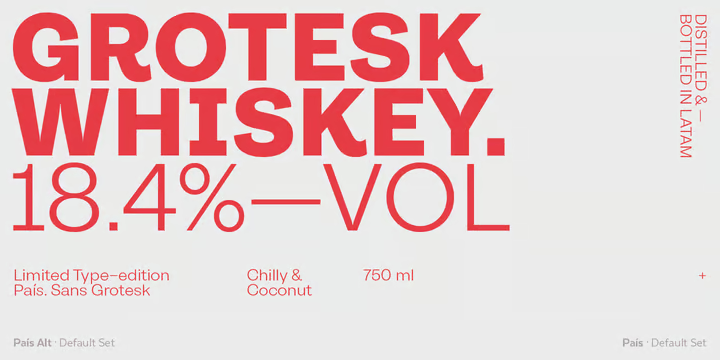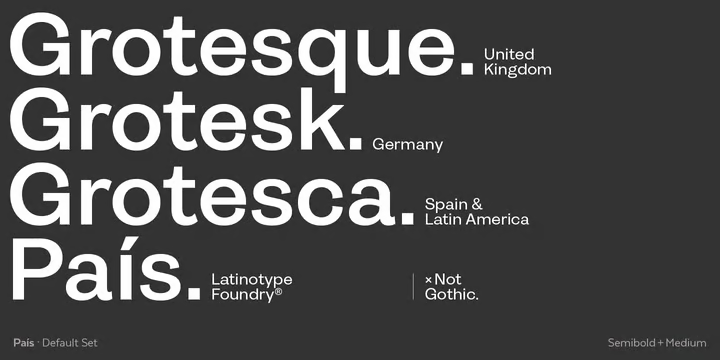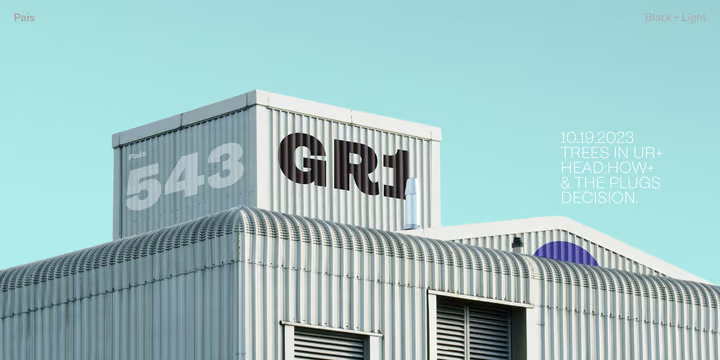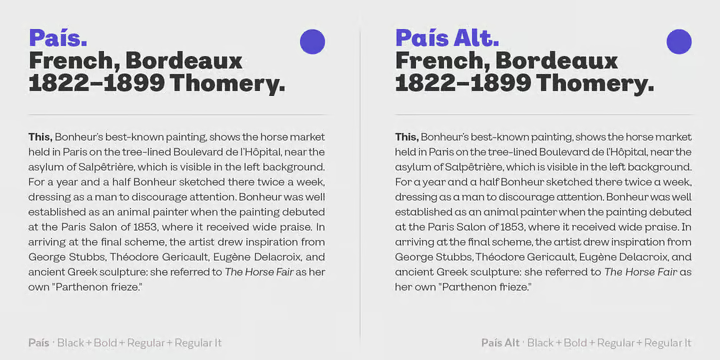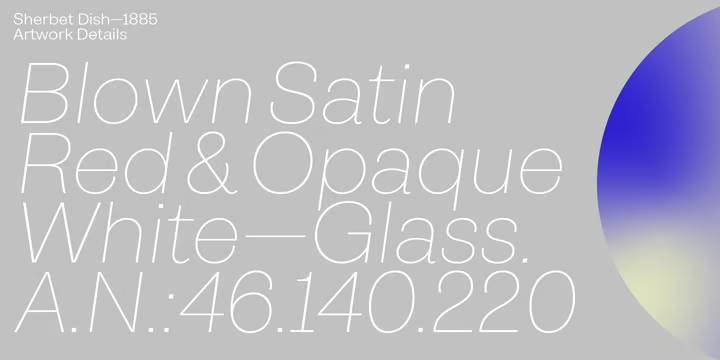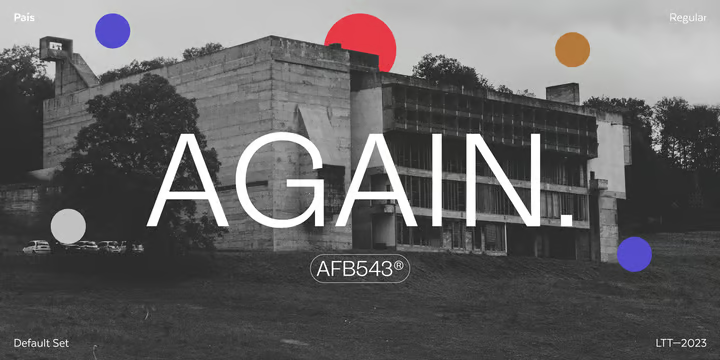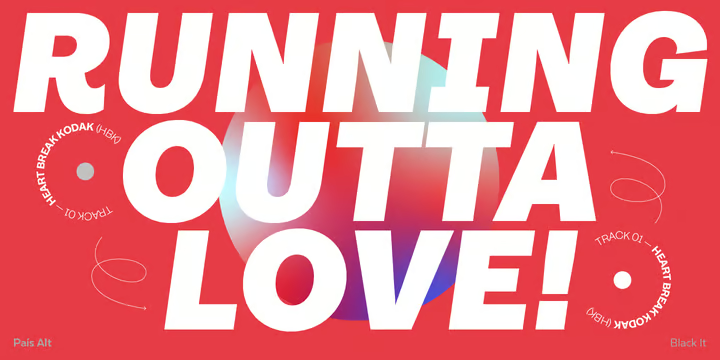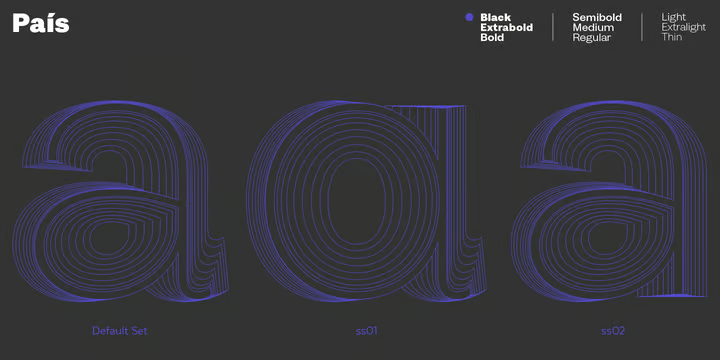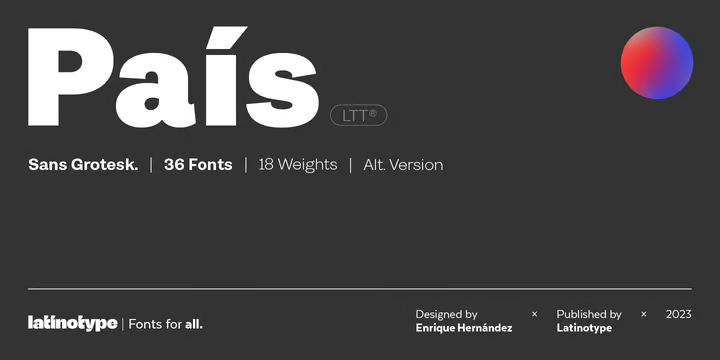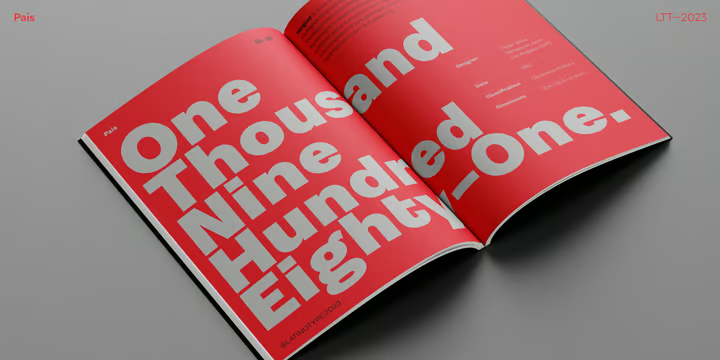
Pais Font Family
“País” is a contemporary and modern grotesque sans serif, inspired by the grotesques of the early 20th century, but more geometric and with a wider x-height than its referents; making it ideal for the current times. “País” comes in 2 versions, each with 9 weights, from thin to black, and matching italics, for a total of 36 fonts. The standard sans serif version is fresh, clean, and more ideally neutral. It’s a perfect choice for editorial design, branding, headlines, or any other piece of graphic design. The “País Alt” version has more expressive and modern characters, with some giving it a much more playful image. It is ideal for logos, packaging, web and television use. País contains a total of 682 characters that make it possible to write in more than 200 Latin languages and basic Cyrillic.
Where Pais Font Family works best
Pais Font Family stays legible at small sizes, which makes it a strong choice for navigation, buttons and dashboards in web design and app interfaces.
Clean sans serifs like Pais Font Family are the default language of SaaS, fintech and product branding.
What is Pais Font Family good for?